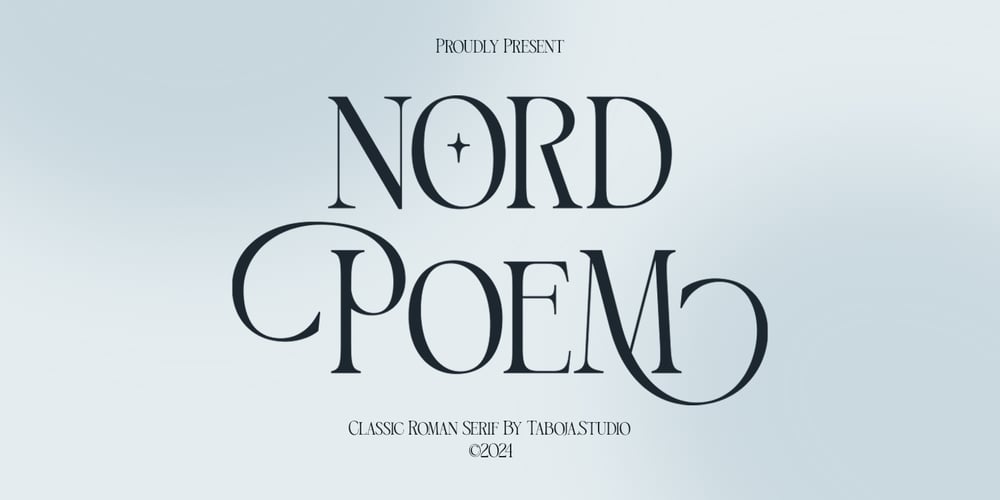
TBJ Nord Poem Roman Serif
TBJ Nord Poem Roman Serif font
TBJ Nord Poem Roman Serif Font Family was designed by Yusilo Oktaprima Ardani and published by Taboja Studio. TBJ Nord Poem Roman Serif contains 1 styles and family package options. Say hello to Nord Poem Classic Roman Serif, Elegant Serif Typeface with a unique and stylish serif display style. This font combines classic roman serif elements with modern touches, creating visually striking and strongly appearance.This font perfect for projects that require a vintage feel, such as posters, logos, packaging, and promotional materials that aim to capture a classic style and sophisticated atmosphere. This font will add a special touch to your designs and captivate viewers with its stylish roman serif and distinctiveness.Includes:RegularUppercase and LowercaseNumerals and Punctuation100 Various Alternates And LigaturesAccented charactersMultilingual SupportUnicode PUA EncodedWe highly recommend using a program that supports OpenType features and Glyphs panels such as Adobe Illustrator, Adobe Photoshop CC, Adobe Indesign, or CorelDraw, so you can see and access all Glyph variations.While using this product, if you encounter any problem or spot something we may have missed, please don’t hesitate to drop us a message. We’d love to hear your feedbacks in order to further fine-tune our products.Stay creative and have a wonderful day.